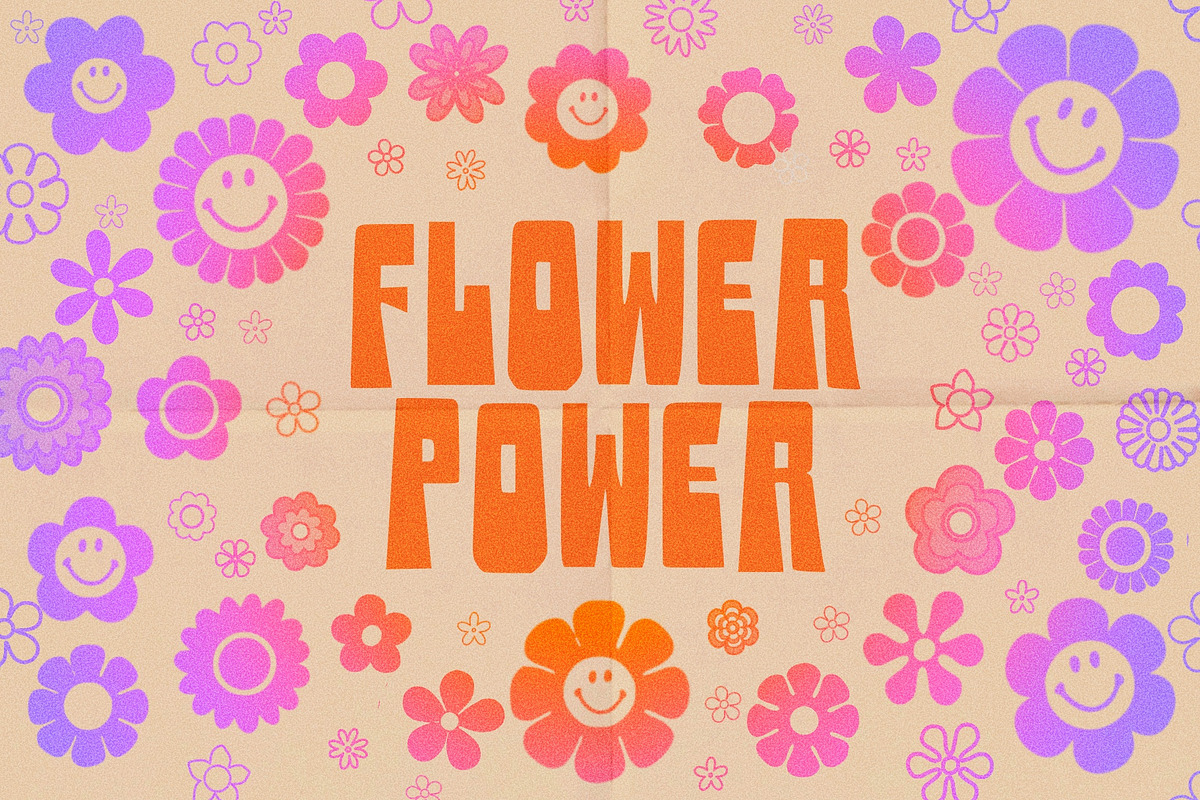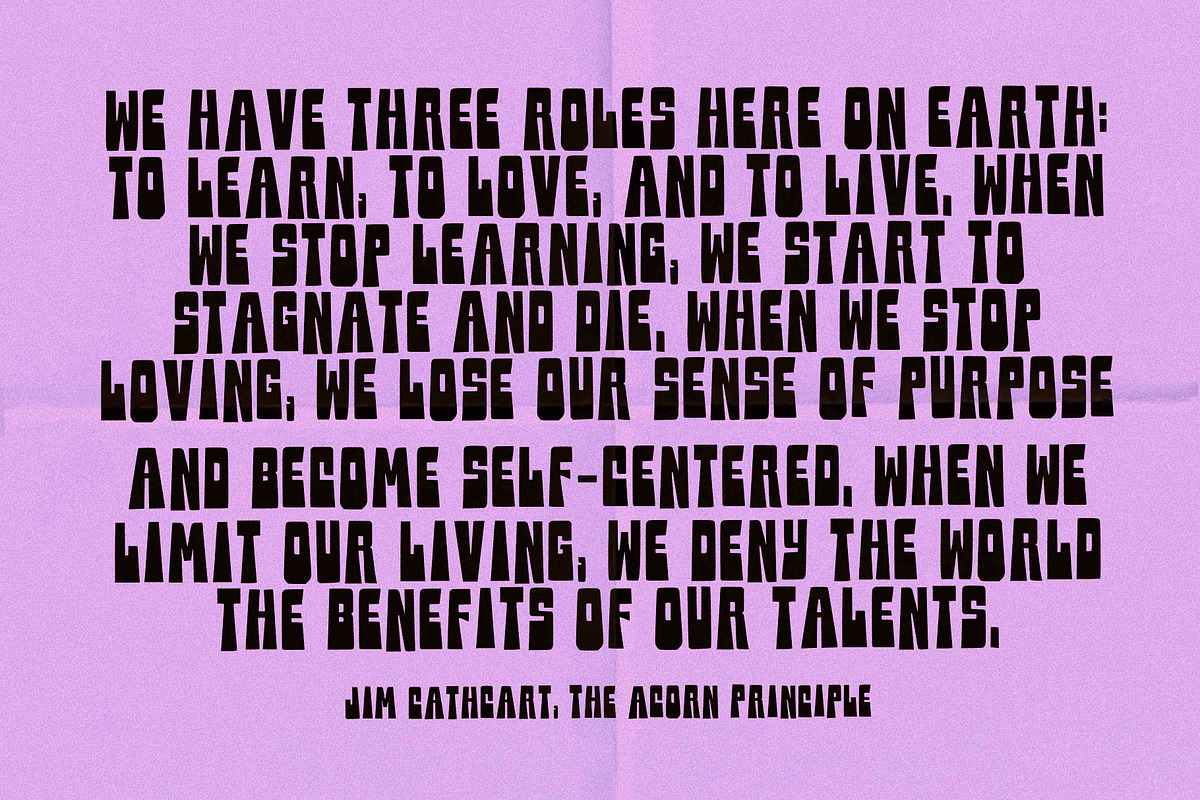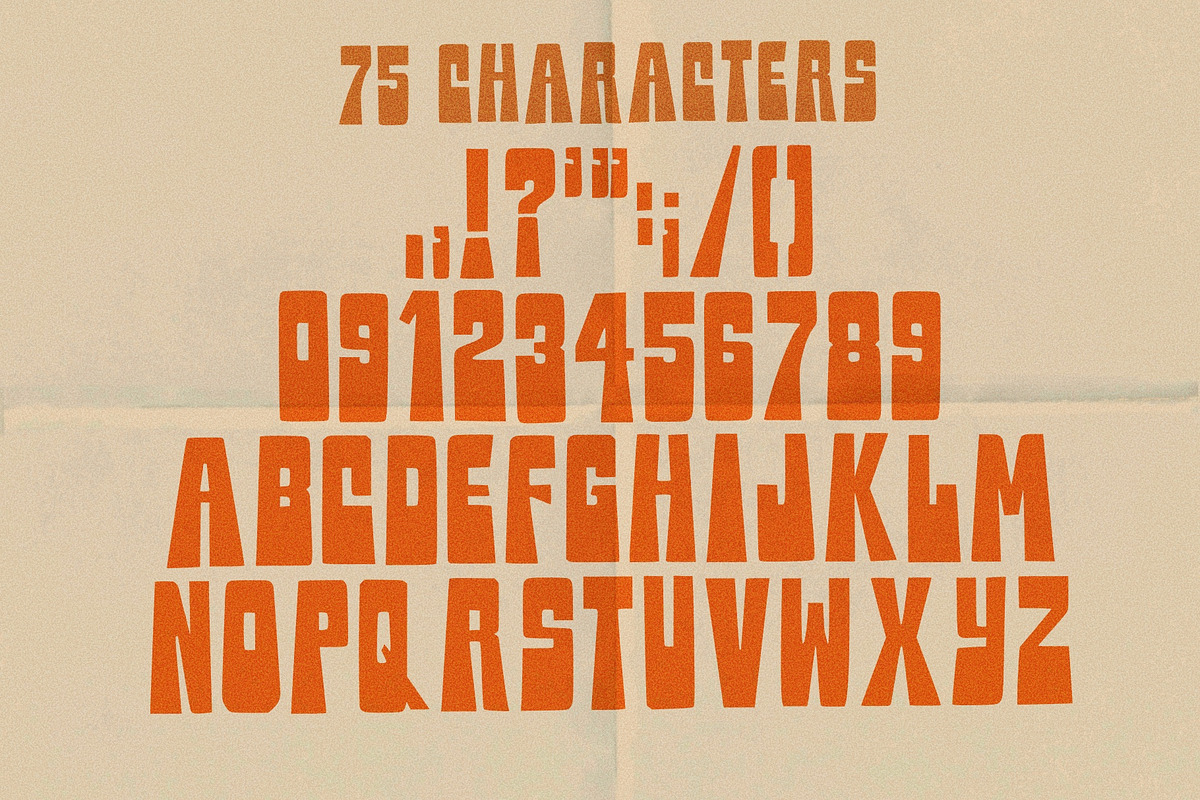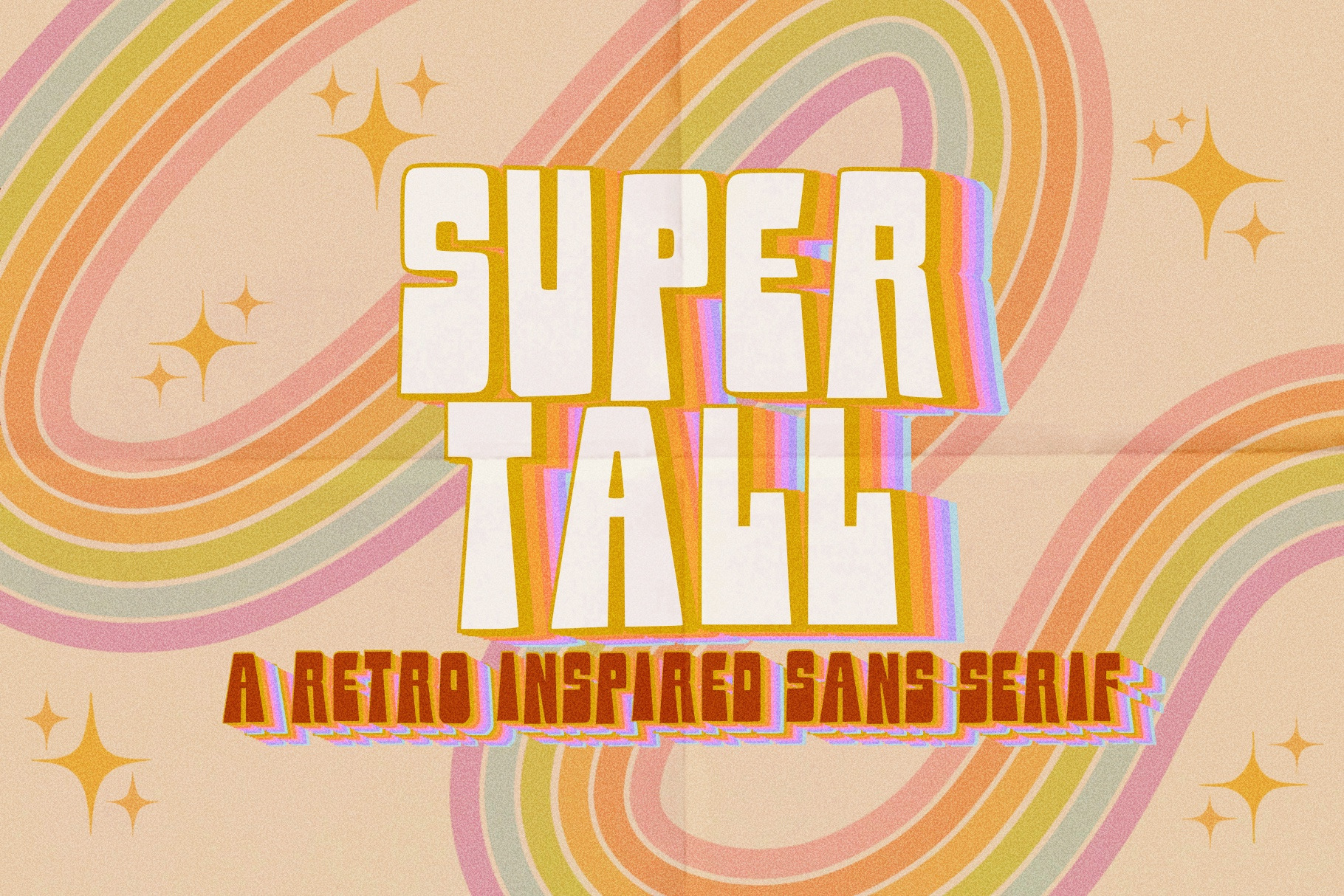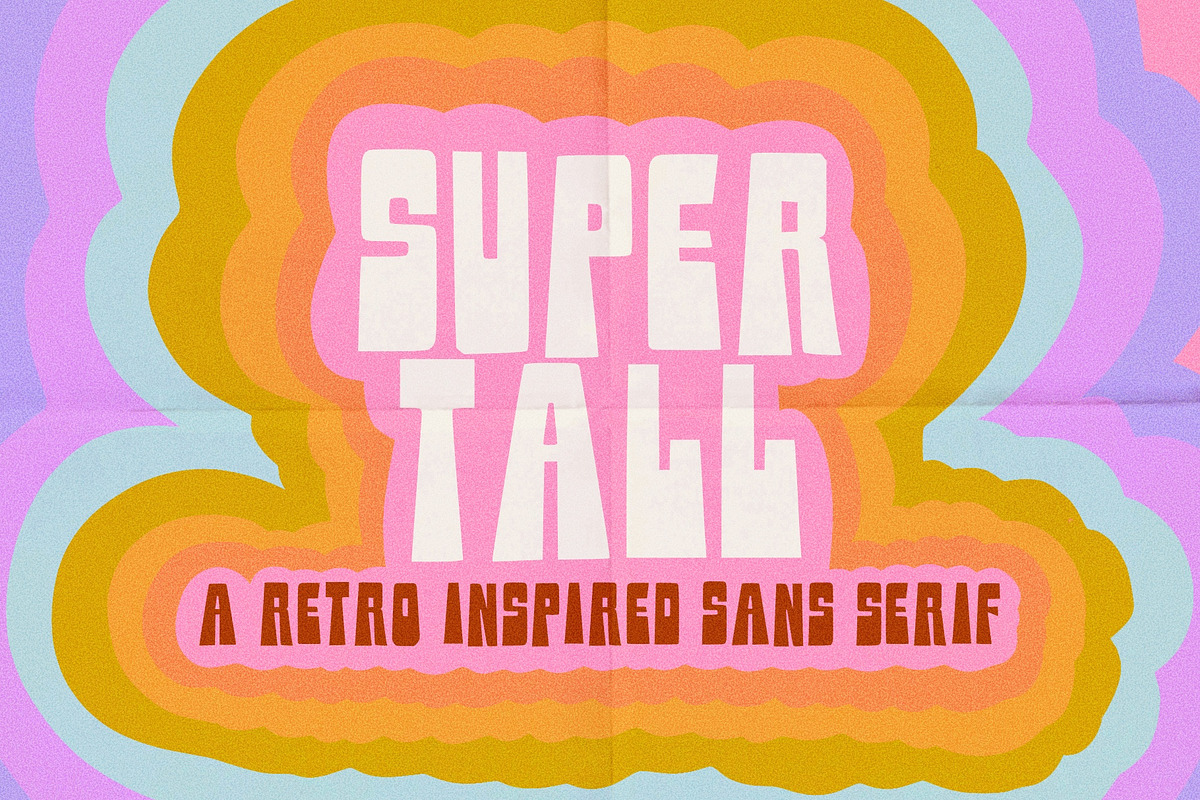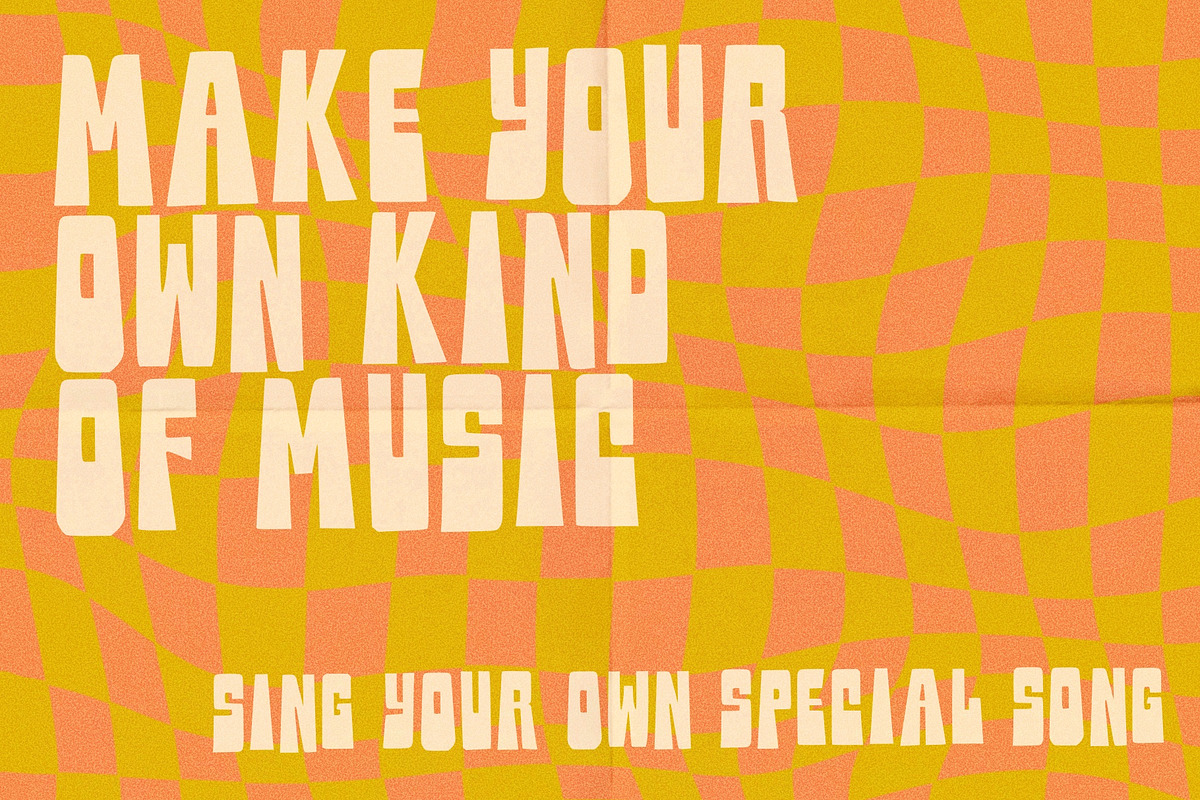
Super Tall - Retro Sans Serif Font
SUPER TALL a retro inspired sans serif font that’s got some height! This font is inspired by 1970s concert posters and album covers. Add some groovy psychedelic vibes to your design with this font.
This font works in English and has 75 characters. It contains all letters upper and lowercase (but this font is all caps), numbers and some punctuation. You can use it for body text but it looks best as a display font!